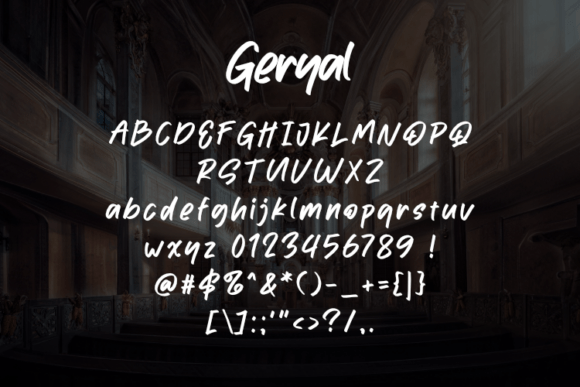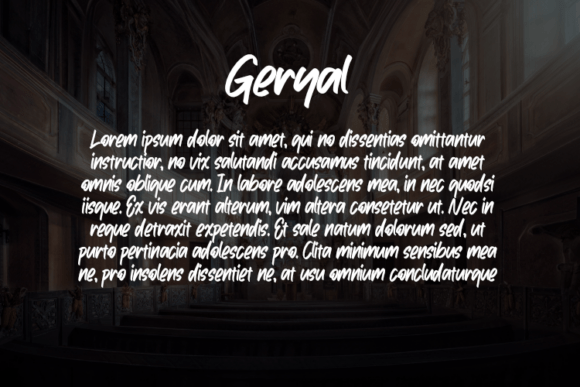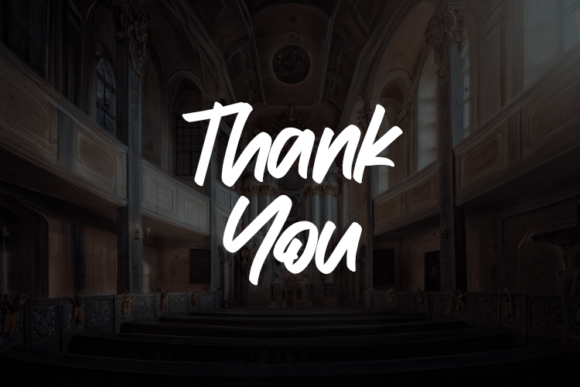
Introduction to Geryal Font
Remember that moment when you finally land on the perfect design element for your creative project? The one that brings your vision to life and sets it apart from the rest? That’s exactly what the Geryal Font is all about – elevating your design to new heights and providing a seamless experience for designers.
As a go-to design resource, the Geryal Font is a game-changer for anyone looking to create high-quality, eye-catching designs. With its striking aesthetics and versatility, this font is perfect for t-shirt designs, high-fashion apparel creations, and assorted product ensembles. Its compatibility with all software platforms and a user-friendly otf file make it an invaluable asset for designers.
Key Features of Geryal Font
- Comes with a transparent background, allowing for easy customization and versatility.
- Unique characteristics include a modern and sleek design, making it perfect for branding, logos, and editorial content.
Honest Review: Geryal Font
As a designer, I’m always on the lookout for high-quality design resources that can elevate my creative projects. The Geryal Font caught my eye, and I was excited to dive in and see what it has to offer.
- ✨ The Geryal Font is highly customizable, with a wide range of styles and weights available. This makes it a great choice for designers who need to create complex typography.
- ✨ The font also features a transparent background, which is perfect for designers who want to create sleek, modern designs.
Overall, I’m impressed with the Geryal Font. It’s a high-quality design resource that can add a touch of elegance to any creative project. While it has some limitations, I think it’s a great choice for designers who need a versatile, customizable font.
Geryal Font is a high-quality design resource ideal for creative projects. It features a transparent background, making it easy to use in various design applications.
The Geryal Font is ideal for use in brochures, business cards, and other marketing materials. It is also suitable for use in creative projects such as infographics and presentations.